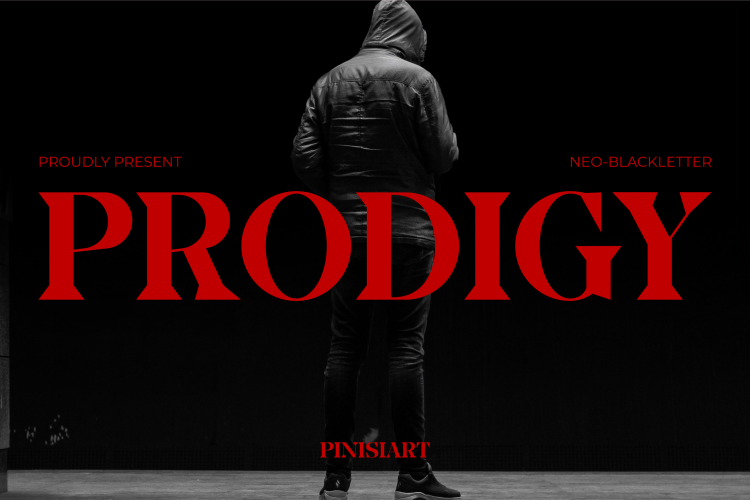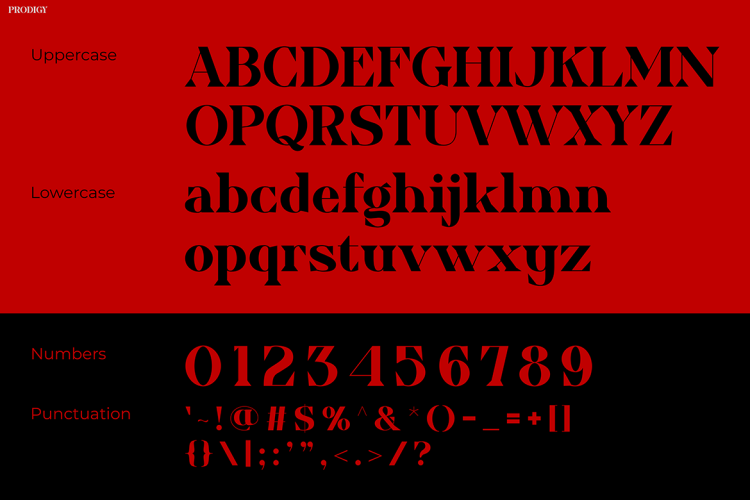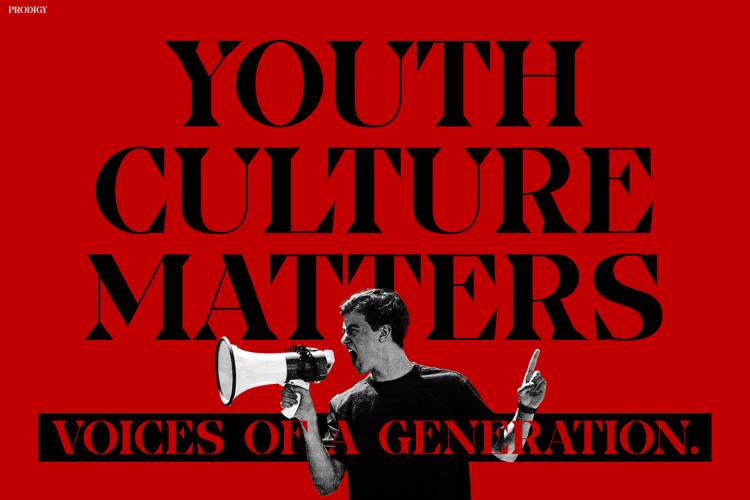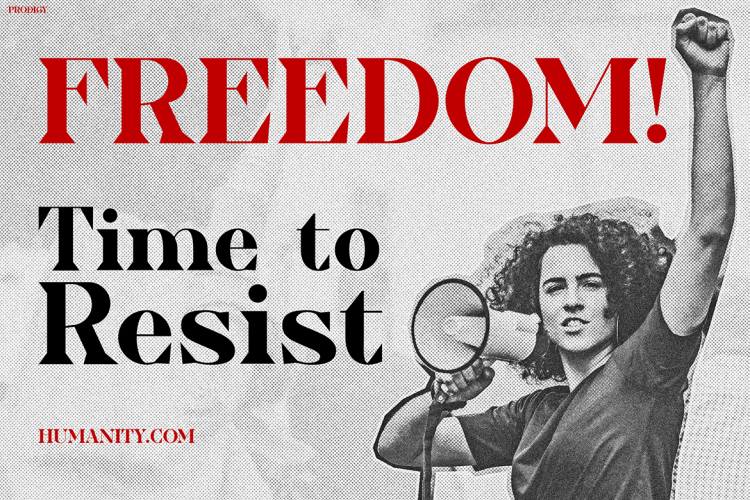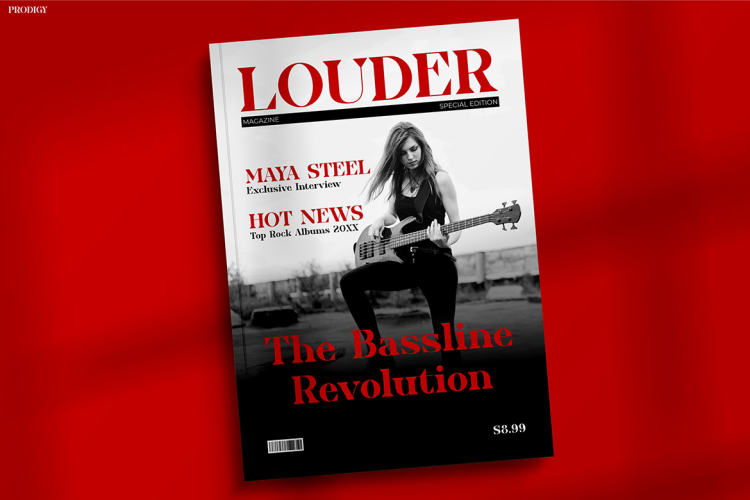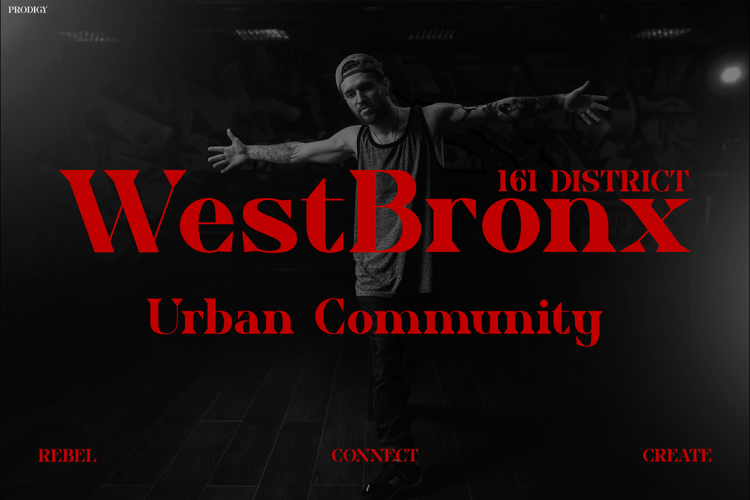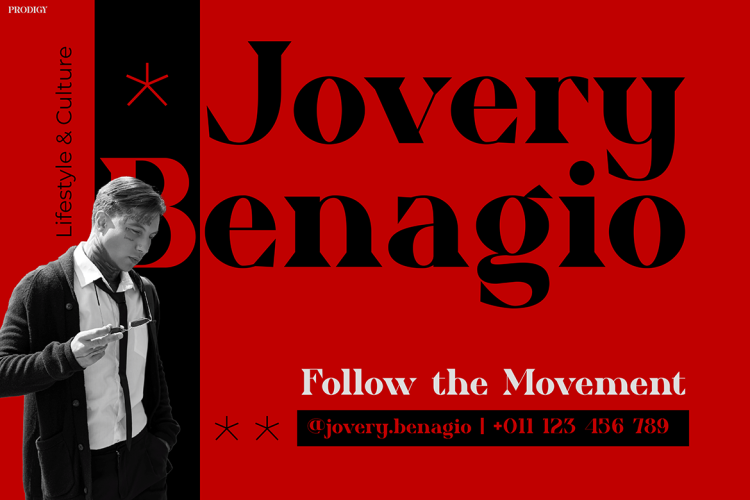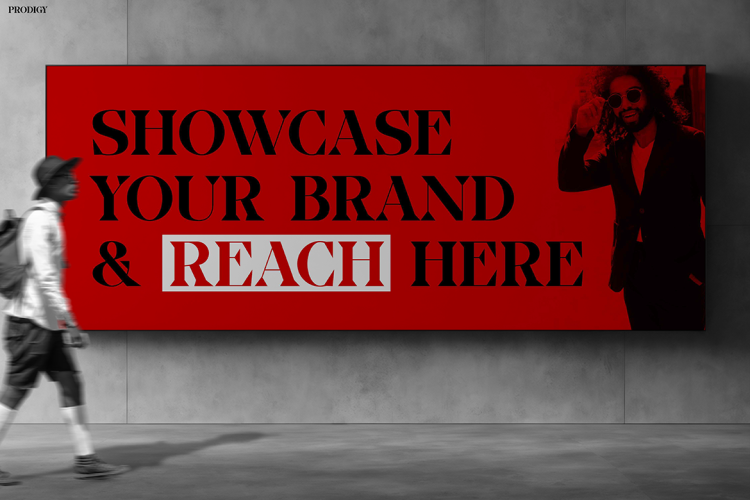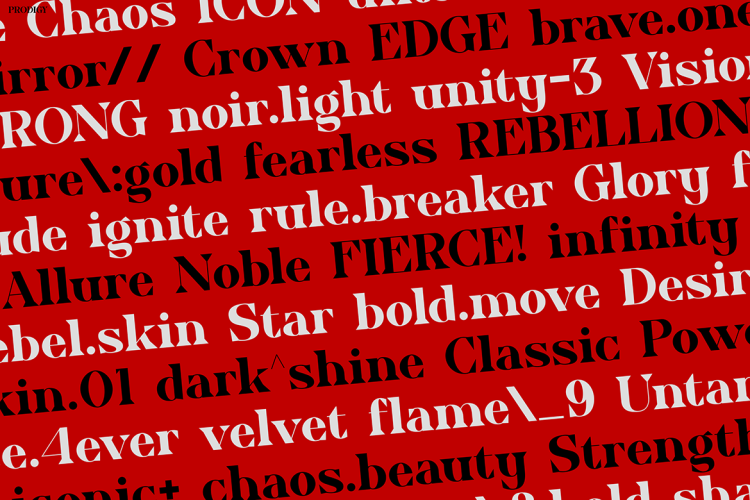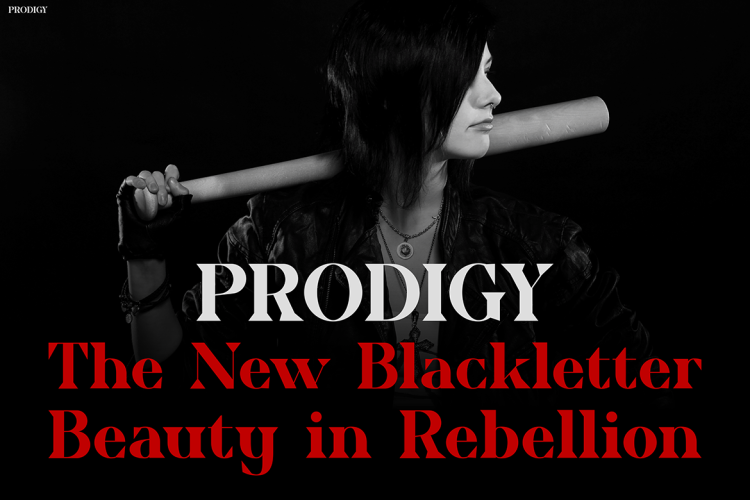
Tattoo Font Prodigy is a striking typeface that combines power, beauty, and personality. It draws inspiration from blackletter traditions, yet carries a modern rebellious spirit. The bold structure, sharp serifs, and dramatic strokes create a unique balance of elegance and strength. Moreover, each letterform is designed to stand out, ensuring your message looks clear and unforgettable.
This font is not only stylish but also versatile. It works for digital designs, print layouts, and bold branding projects. In addition, Tattoo Font Prodigy creates impact in posters, packaging, or even merchandise designs. As a result, it becomes a perfect tool for anyone who wants to grab attention quickly.
Furthermore, the font adapts easily across themes. It can look edgy for music promotions, yet refined for fashion branding. For example, a streetwear label can use it to show authenticity, while a magazine can use it for bold covers. Therefore, Prodigy saves time for designers who want both style and flexibility.
Tattoo Font Prodigy Suitable For
Tattoo Font Prodigy suits professionals and creatives alike. Graphic designers can use it for branding, campaigns, and advertising layouts. Musicians and event organizers can highlight their identity with striking headlines. Moreover, tattoo artists and lifestyle brands will appreciate the rebellious feel in every curve.
In addition, streetwear creators can showcase originality through its bold personality. Social media managers can design posts that instantly attract viewers. Finally, even small businesses can use this font to separate themselves from competition.
Tattoo Font Prodigy is more than just a font. Instead, it is a visual statement that communicates strength and creativity. Its mix of vintage charm and modern edge ensures long-term appeal. Therefore, if you want designs that feel bold, stylish, and unforgettable, this is the right choice. Add Prodigy to your collection today and let your visuals speak louder than words.